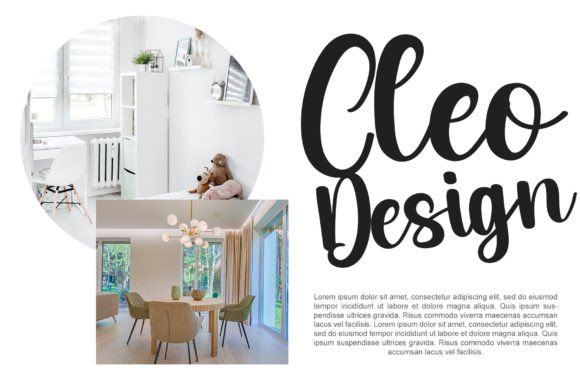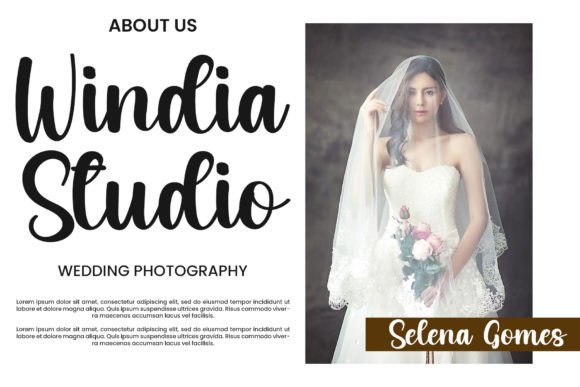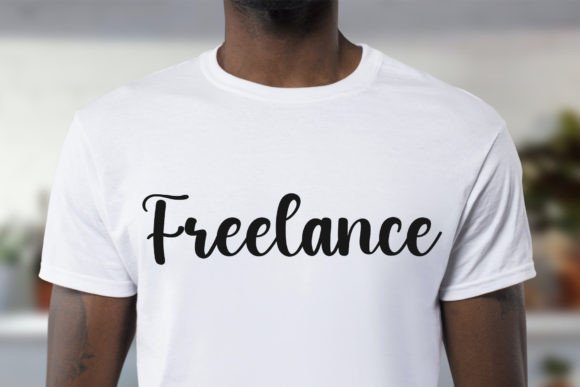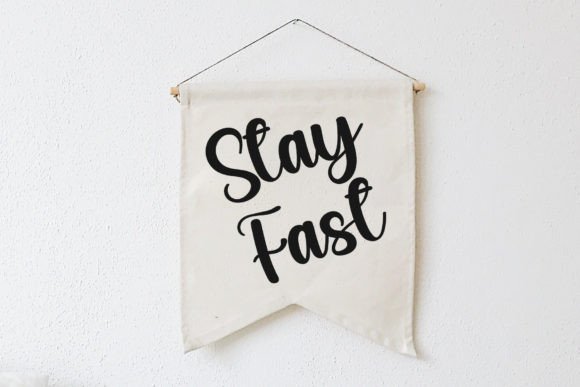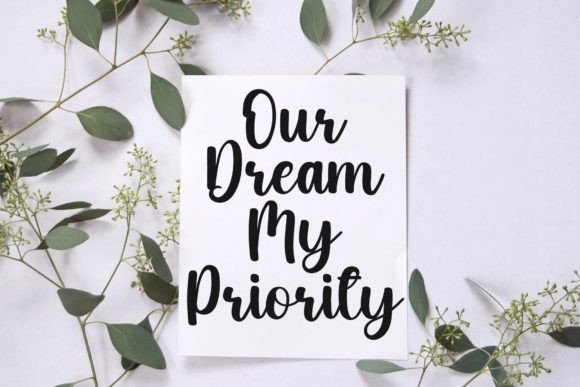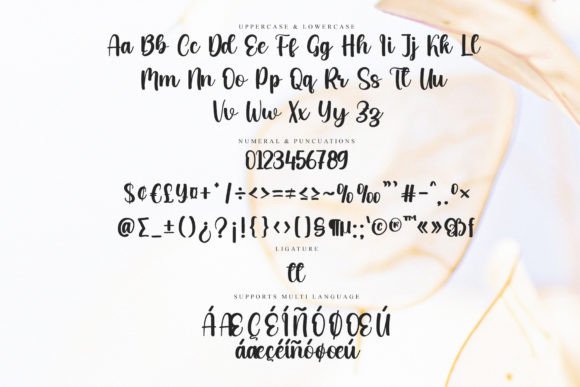
Introduction to Insignia Font
Insignia is a playful and stylish font with a youthful spirit.
Insignia is a playful and stylish font with a youthful spirit. Is suitable for both professional-looking projects such as branding designs, labels, websites, and business cards as well as casual desig
Key Features of Insignia Font